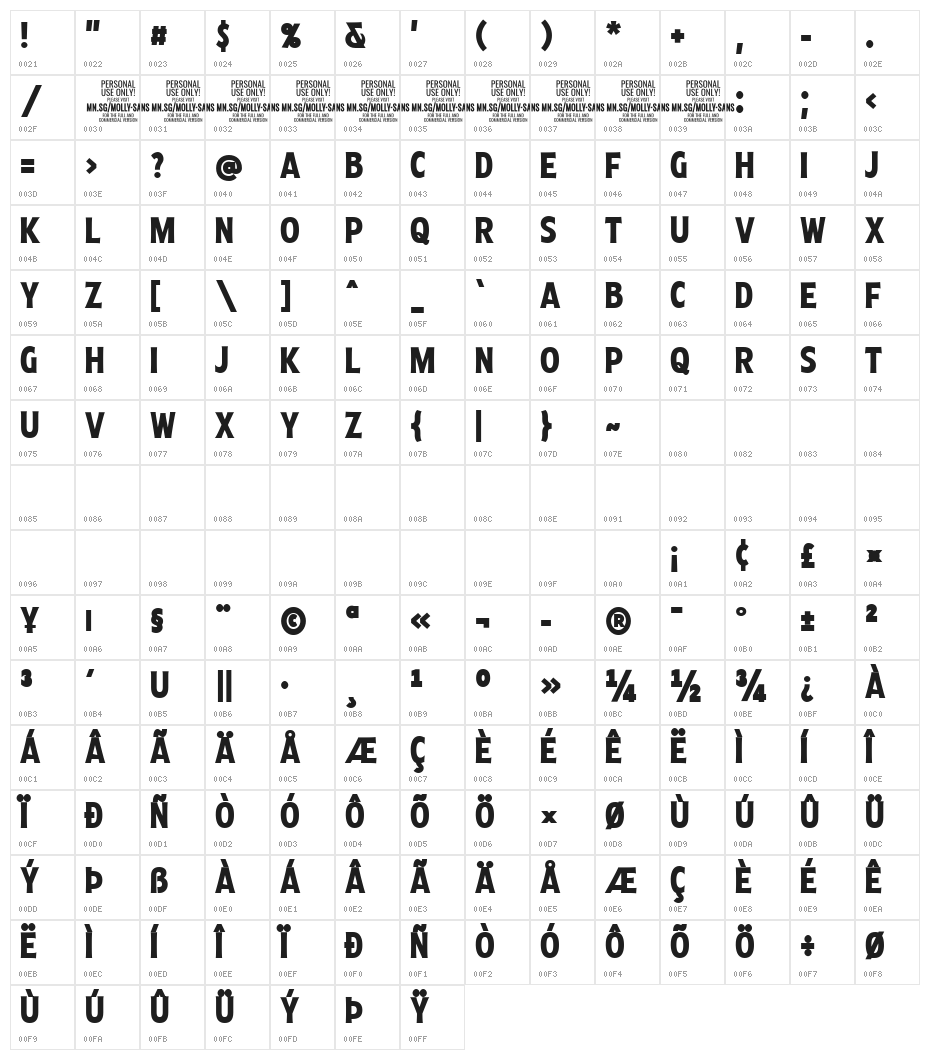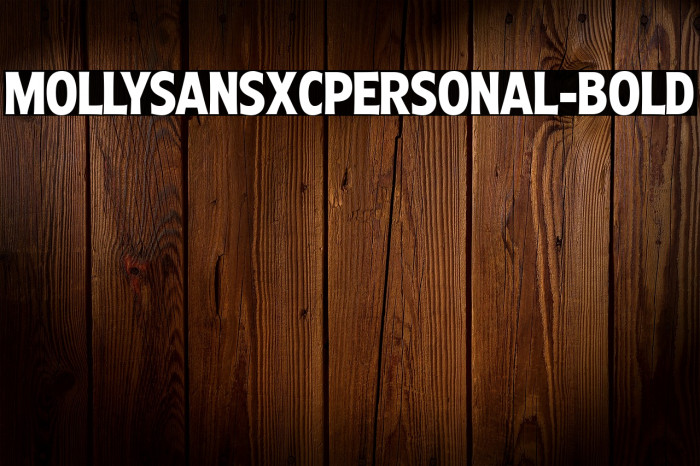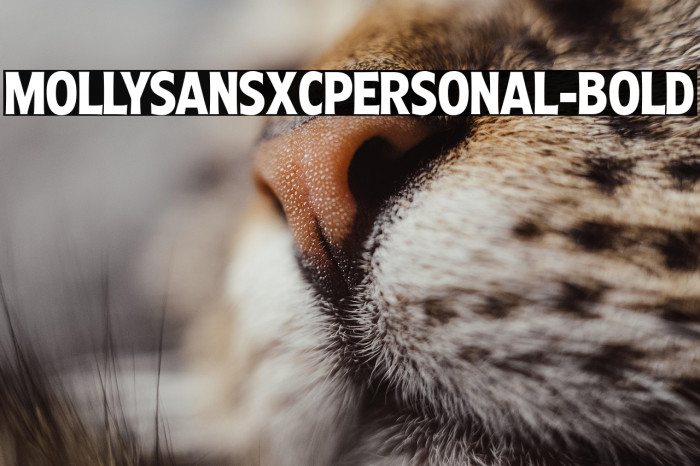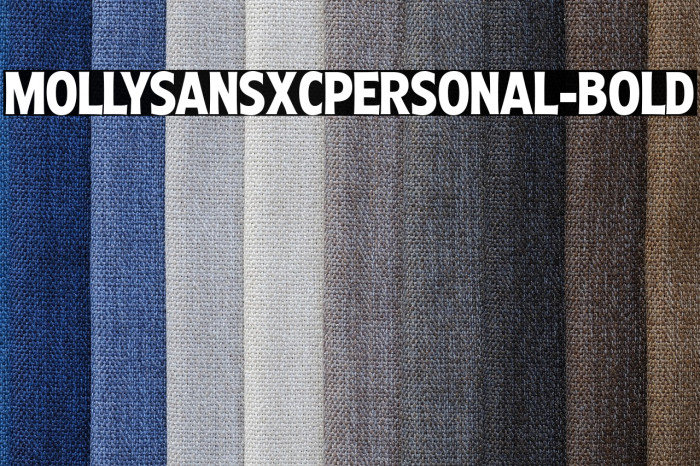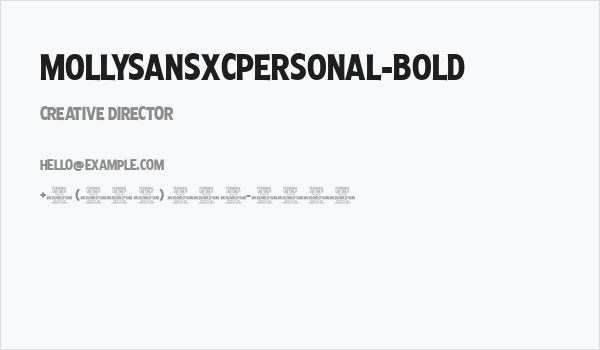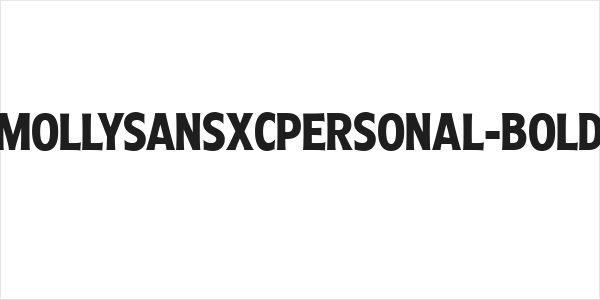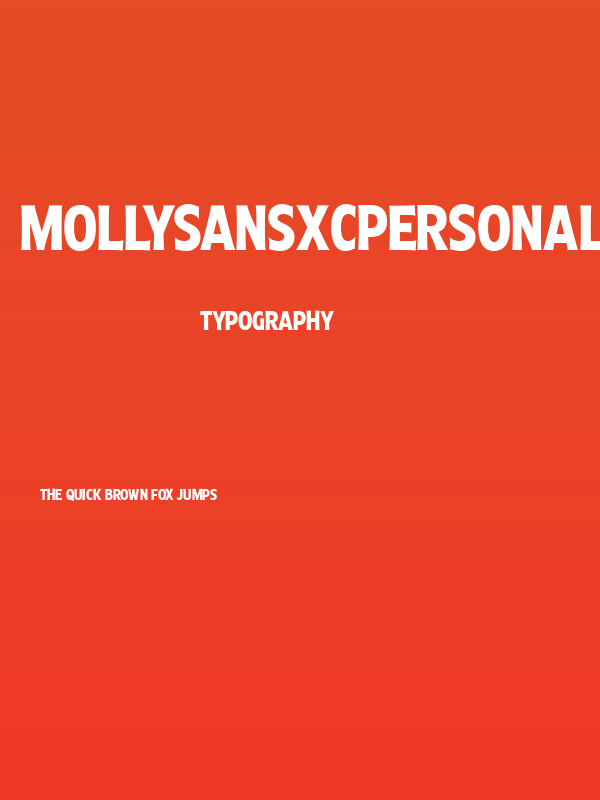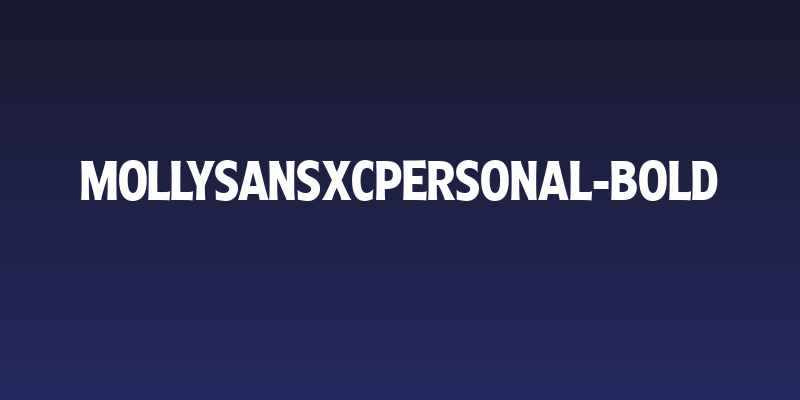
MollySansXCPERSONAL-Bold Font
MollySansXCPERSONAL-Bold Description
This font features bold, uppercase letters with a strong presence, making it ideal for attention-grabbing designs. The characters have a slightly condensed appearance, contributing to a compact and powerful look. The strokes are consistent in thickness, providing a uniform and cohesive style. The font includes a full set of uppercase letters, numbers, and a variety of special characters, making it versatile for different design needs. Its boldness and clarity make it suitable for headlines, posters, and branding projects where impact is essential.
| Proposed Projects | Perfect for headlines, posters, branding, and advertising where a strong visual impact is needed. |